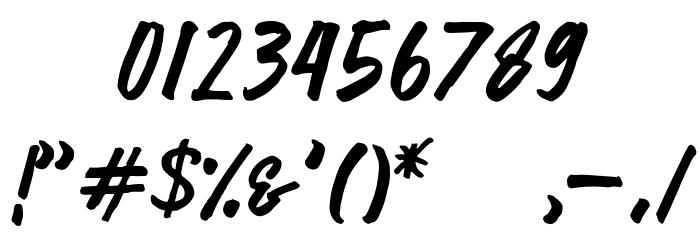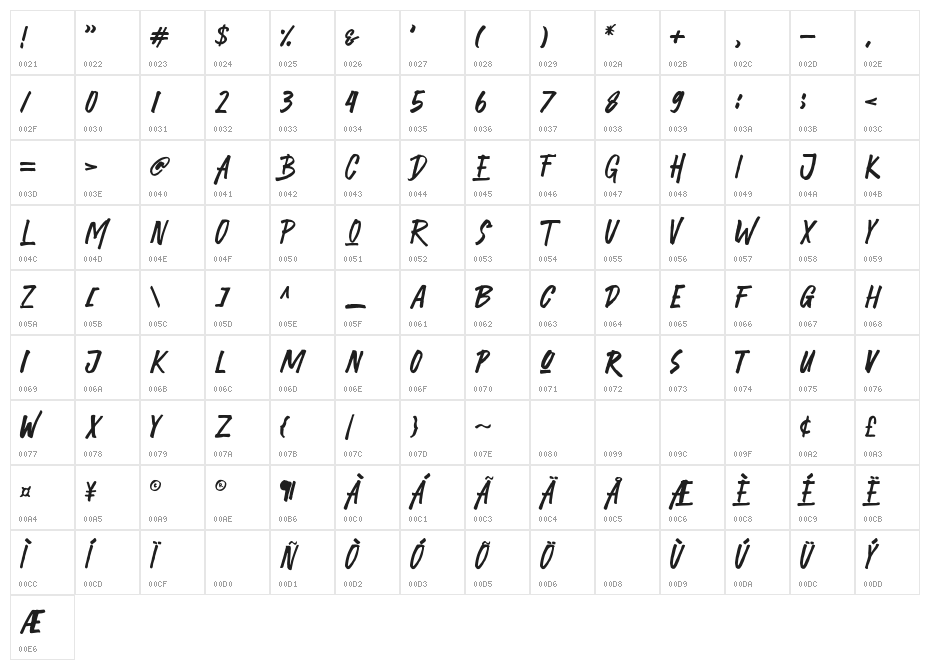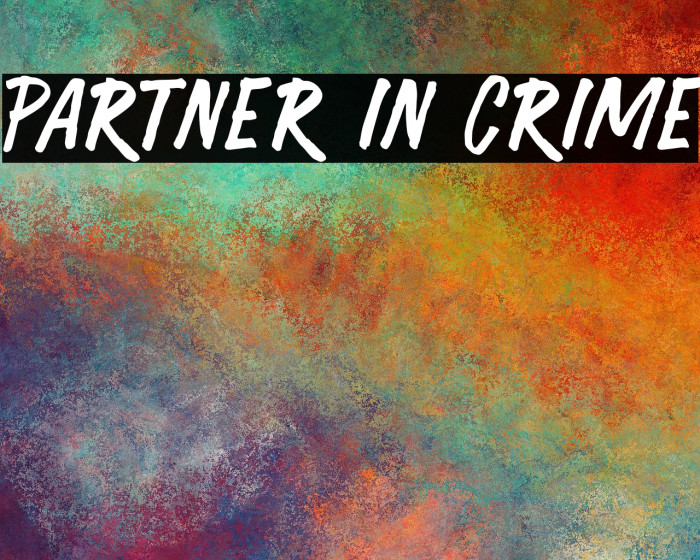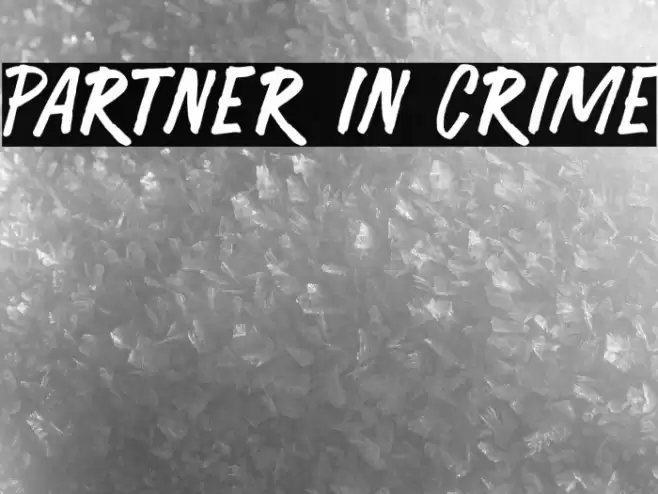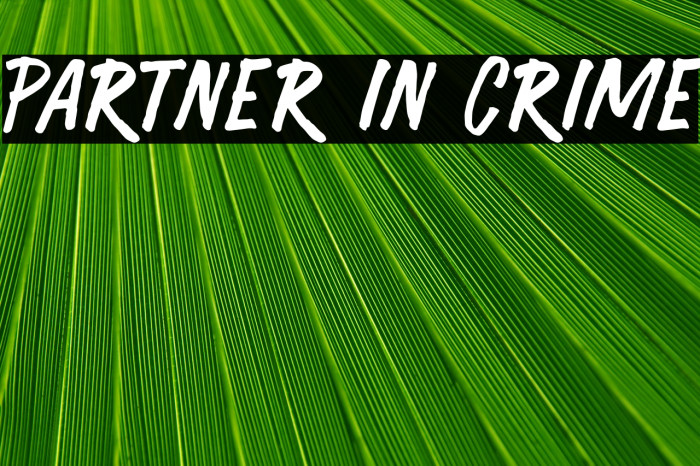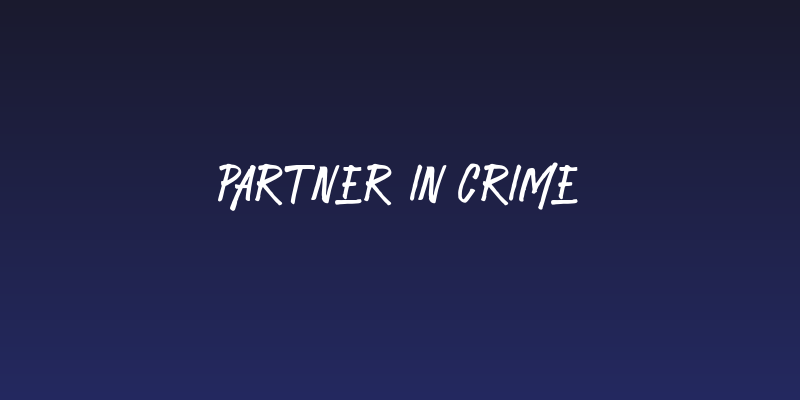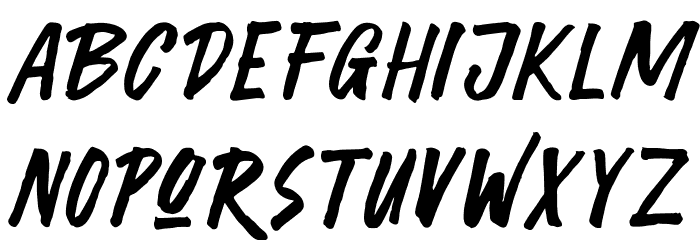
Partner in Crime Font
Partner in Crime Description
This font features a bold and expressive handwritten style, characterized by its dynamic and slightly slanted letterforms. The strokes are thick and uneven, giving it a casual and energetic appearance. The uppercase and lowercase letters maintain a consistent style, with a playful and informal vibe. The numbers and special characters are crafted with the same boldness, ensuring a cohesive look across all glyphs. This font is ideal for projects that require a personal touch or a sense of spontaneity.
| Proposed Projects | Perfect for greeting cards, posters, branding, and social media graphics. |